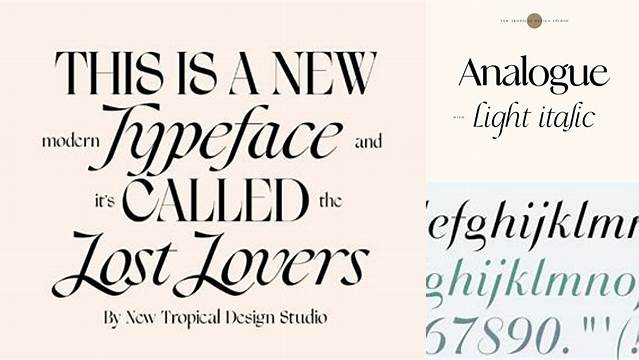
Download Stunning Italic Fonts For Free
Hey guys! Are you on the hunt for some awesome italic fonts that won't break the bank? You're in the right place! Let's dive into the wonderful world of italic font free download options and explore how you can spice up your designs, documents, and creative projects without spending a dime. We'll cover everything from where to find these fonts, how to use them, and even some tips on choosing the perfect one for your needs. Get ready to amp up your typography game with these fantastic free resources. Let's jump right in and discover the best italic font free download options out there! Trust me, you'll be amazed at the variety and quality available. From elegant scripts to modern slants, there's an italic font out there for everyone. Whether you're a seasoned designer or just starting out, finding the right font can make all the difference. So, buckle up and get ready to download some beautiful fonts! The goal here is to equip you with everything you need to make informed choices, ensuring that your projects always look their best. Ready to transform your text into stunning visuals? Let's get started! The ability to find and use the right font can be a game-changer. This guide is designed to help you do just that. We'll explore different font styles, the best websites for downloads, and even some handy tips on how to install and use these fonts. So, let’s make your text pop!
Understanding Italic Fonts: What Makes Them Special?
So, what exactly is an italic font, and why is it so special? Simply put, italic fonts are designed to slant to the right, giving them a distinct appearance that sets them apart from regular fonts. This slant is more than just a stylistic choice; it's a way to add emphasis or differentiate text within a larger body of work. Think about how italics are used in books and articles – they highlight important words, phrases, or titles, making them jump out at the reader. Now, that’s the power of an italic font. Italic fonts bring a touch of elegance and sophistication to any design. They can make a simple title look premium or add a personal touch to a design project. Italic fonts work wonders for headings, quotes, and anything you want to stand out. Using the right italic font can also set the mood. Whether it’s a formal document or a fun and quirky project, the right italic font can set the right tone. Moreover, the variety of italic fonts available is amazing. From classic serifs to modern sans-serifs, there is a perfect match for every project. Understanding the subtle differences between different italic fonts will help you select the one that fits your needs. When you’re choosing an italic font, think about your project's overall style and the message you want to convey. This will guide you to the perfect choice. Remember, the right italic font can significantly enhance the visual appeal and readability of your work, making it both attractive and engaging. Let's explore some cool fonts to consider!
The History and Evolution of Italic Typefaces
The story of italic fonts is pretty fascinating, actually! It all began in the early 16th century in Venice, Italy. Aldus Manutius, a famous printer, came up with the idea to create a new type of font that was inspired by handwriting. This was done to save space and reduce costs. The first italic fonts were designed to be narrower than the standard roman fonts, allowing printers to fit more words on a page. This innovation quickly caught on, and italic typefaces became a staple in printing. Over the centuries, italic fonts have evolved significantly. They have transformed from handwritten imitations to a wide variety of styles. Each style has its own unique characteristics. There are delicate, flowing scripts, bold, modern designs, and everything in between. This variety means there's an italic font to fit every project and style. The use of italic fonts has evolved along with printing techniques. In the digital age, the design and use of italic fonts continue to evolve. New fonts are constantly being created, reflecting changes in design trends and technological capabilities. When you download an italic font free, you are tapping into a rich history. The history of italic fonts is a testament to the enduring appeal of a typeface. It shows how design, practicality, and technology have influenced the way we read and communicate.
Key Characteristics That Define Italic Fonts
So, what are the key features that make an italic font stand out? First and foremost, the slant! This is the most noticeable feature of these fonts, usually leaning to the right. This slant isn't just for show; it serves a real purpose in making text stand out and convey a specific tone. Also, italic fonts often have a more handwritten or calligraphic appearance. They capture the fluidity of handwritten letters, making them feel more personal and elegant. The design of italic fonts adds a layer of visual interest to any text. You’ll often notice connected letterforms in script italic fonts, creating a sense of flow. Some italic fonts have decorative elements, such as swashes and flourishes, which add flair. These details help create a more visually appealing and dynamic design. The contrast between thick and thin strokes can also create a visual appeal in the italic font. This contrast gives the text depth and a sense of movement. Italic fonts can also include a variety of different styles, from formal to casual. The selection of an italic font will depend on the project's purpose. By understanding these characteristics, you can better appreciate the value of italic fonts. You can also choose the most appropriate font for your design needs. Whether you're looking for something traditional or something with a modern twist, the characteristics of italic fonts offer endless design possibilities.
Font Squirrel: High-Quality, Hand-Picked Italic Font Downloads
Font Squirrel is a great resource, especially if you're looking for high-quality italic font free download options. They focus on fonts that are free for commercial use. This is a huge plus for anyone who's using fonts in their professional projects. Font Squirrel is a curated site. This means that the fonts are carefully selected for quality and design. This is great because you know you are getting top-notch fonts. Font Squirrel also has a great tool to help you identify fonts from images. You can upload an image with the font you want to identify, and they'll try to match it for you. It's a super handy feature for font enthusiasts. Font Squirrel is an awesome choice when you want reliable, high-quality italic fonts. It will help your projects look professional and stylish.
1001 Free Fonts: Extensive Library for Italic Font Free Download
1001 Free Fonts is another fantastic spot to snag some italic font free download choices! It offers an extensive library of fonts and a great selection of italic styles. If you are looking for variety, this is your place. The site’s user-friendly interface helps you find exactly what you need. You can search by category, style, or keyword. It is an easy way to browse fonts. The site has lots of fonts suitable for different types of projects. Check the license before use. You'll find some hidden gems to make your designs pop. 1001 Free Fonts is perfect for finding versatile fonts. Whether you're working on a personal project or something professional, it has something for everyone. It’s definitely a great option for expanding your font library!